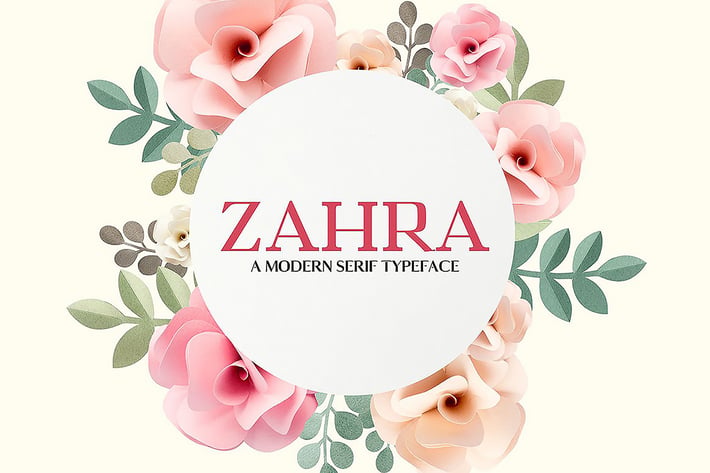
Zahra Serif Typeface
Zahra is the perfect typeface to create sleek and elegant headlines and logo designs. It pairs well with both script and sans-serif fonts and features multiple weights.
Included Features:
- Font Weight: Regular, Thin, Light, Medium, Rounded and Bold
Zahra Font Features:
- Uppercase Multilingual Letters
- Lowercase Multilingual Letters
- Non English Characters ( Latin Supplement + Latin Extended A)